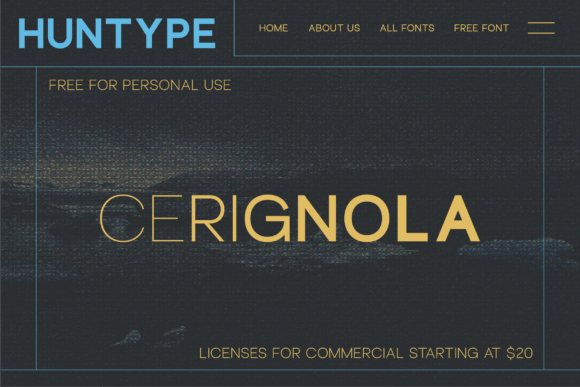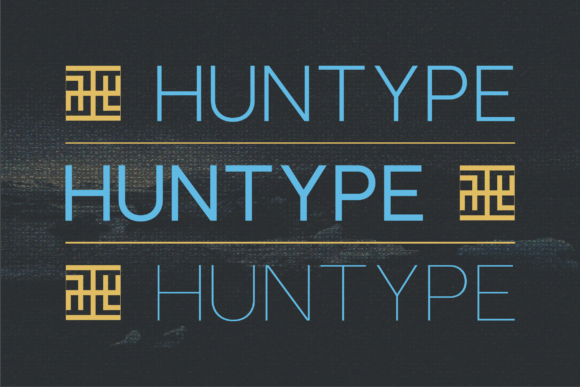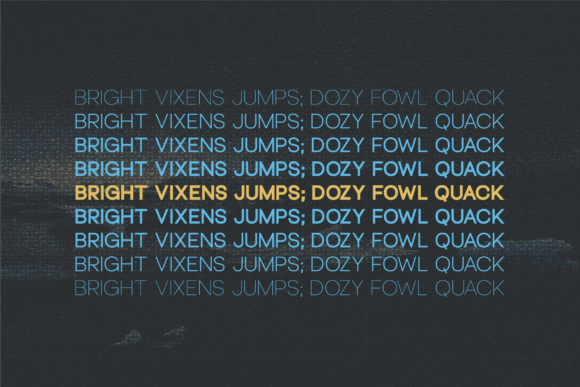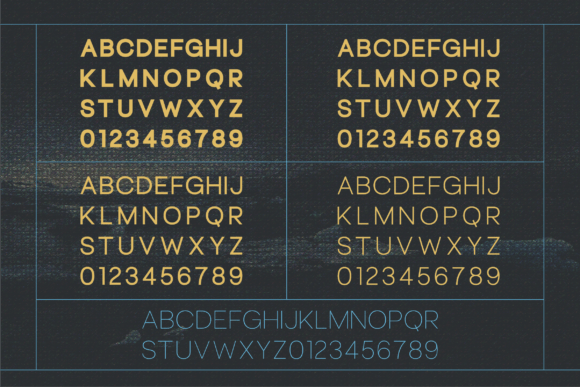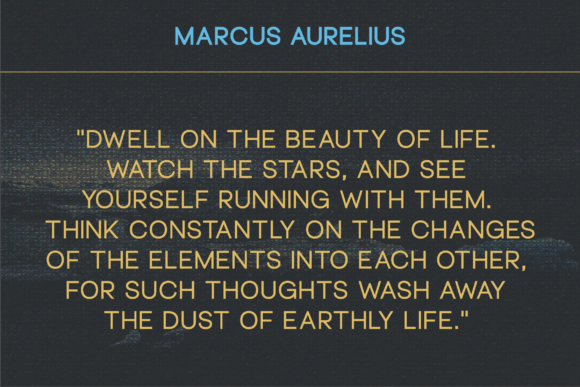
The Designer’s Delight: Cerignola Font
I still remember the design project that led me to discover the amazing Cerignola font. I was working on a branding project for a luxury client, and I was struggling to find the perfect font that exuded sophistication and elegance. The client wanted a font that was modern, versatile, and would make their brand stand out. After hours of searching, I stumbled upon Cerignola, and it was love at first sight! ✨
A Personal Review of Cerignola Font
- ✨ Modern and versatile: Cerignola is a font family that seamlessly blends clean geometric forms with subtle sophistication.
- ✅ Adaptable style: The font’s precise letterforms and contemporary aesthetic make it perfect for a wide range of design applications.
- 💯 Harmony of sharp lines and gentle curves: The font’s unique balance of sharp lines and gentle curves creates a visually appealing effect.
- 🎉 Five font weights: Cerignola includes five fonts: Thin, Light, Regular, Bold, and Black, making it a versatile choice for designers.
While Cerignola is an amazing font, there are a few things to keep in mind: ⚠️
- 🤔 Limited language support: Cerignola currently supports a limited number of languages, so make sure to check the font’s specifications before using it for a project.
- ⚠️ Glyph limitations: Some users have reported that the font’s glyph set is not as extensive as they would like. However, the font’s creator is actively working to expand the glyph set.
The Backstory of Cerignola Font
Cerignola was designed by a team of typographers who wanted to create a font that was both modern and sophisticated. The font’s name is inspired by the Italian town of Cerignola, known for its stunning architecture and rich history. The design team drew inspiration from the town’s beautiful buildings and historic landmarks to create a font that is both elegant and refined.
| Font Name | Cerignola Font |
| Author | Huntype |
A: Cerignola Regular is a great choice for body text, as it provides a balanced and versatile look that works well for most designs.
Q: Is Cerignola a script font?
A: No, Cerignola is a sans-serif font with a geometric feel, although it does have some subtle curves and rounded edges.